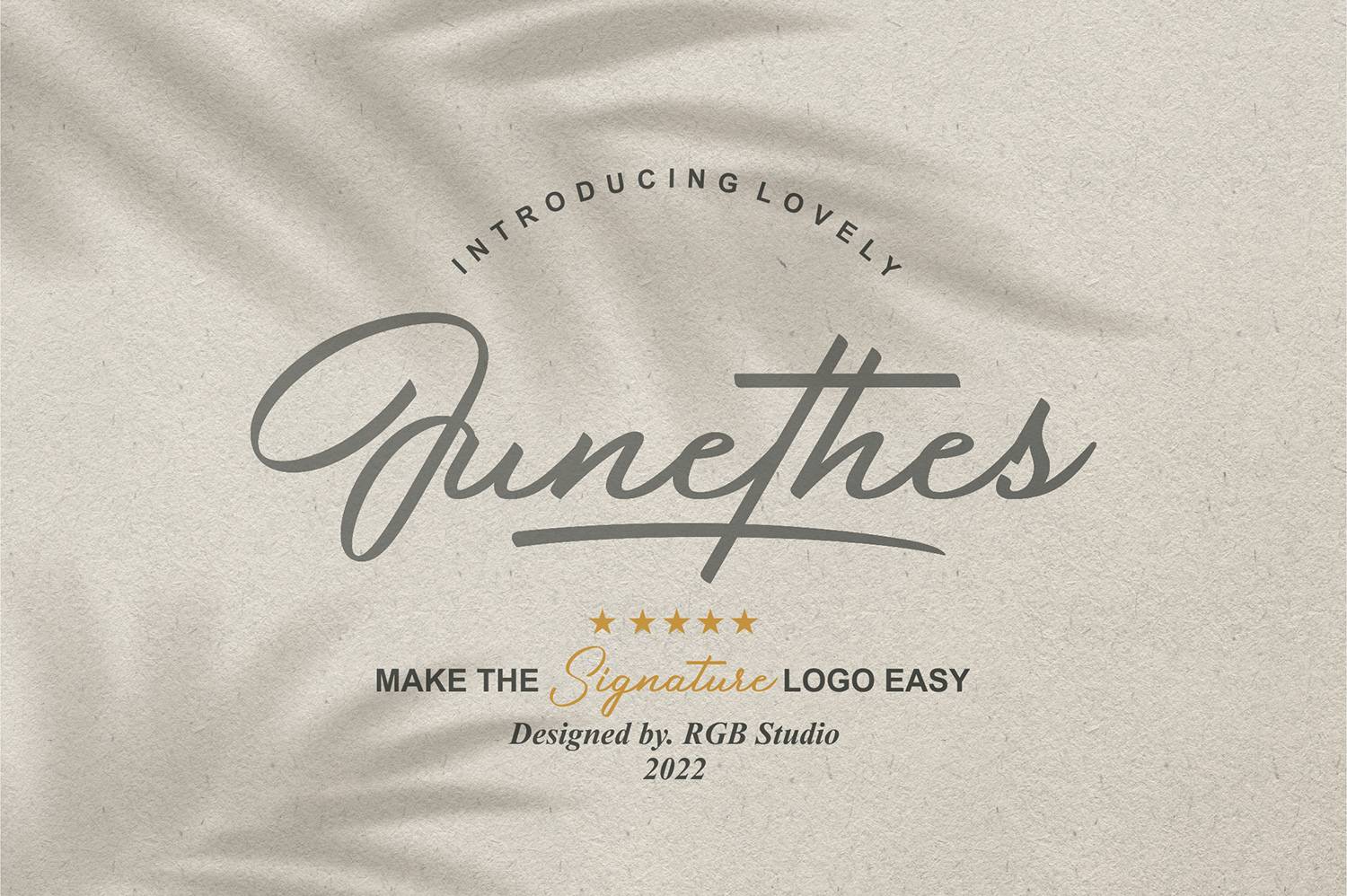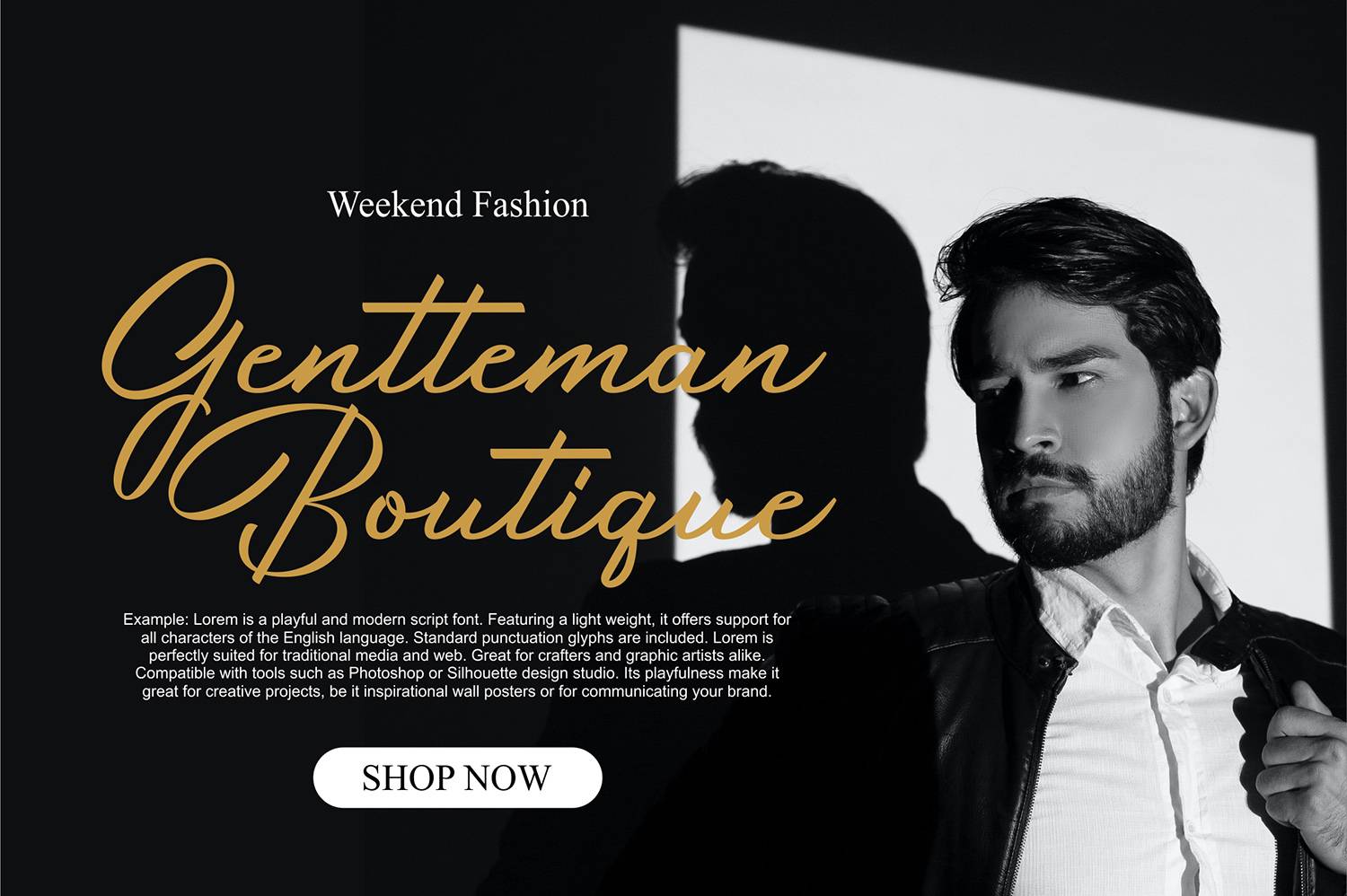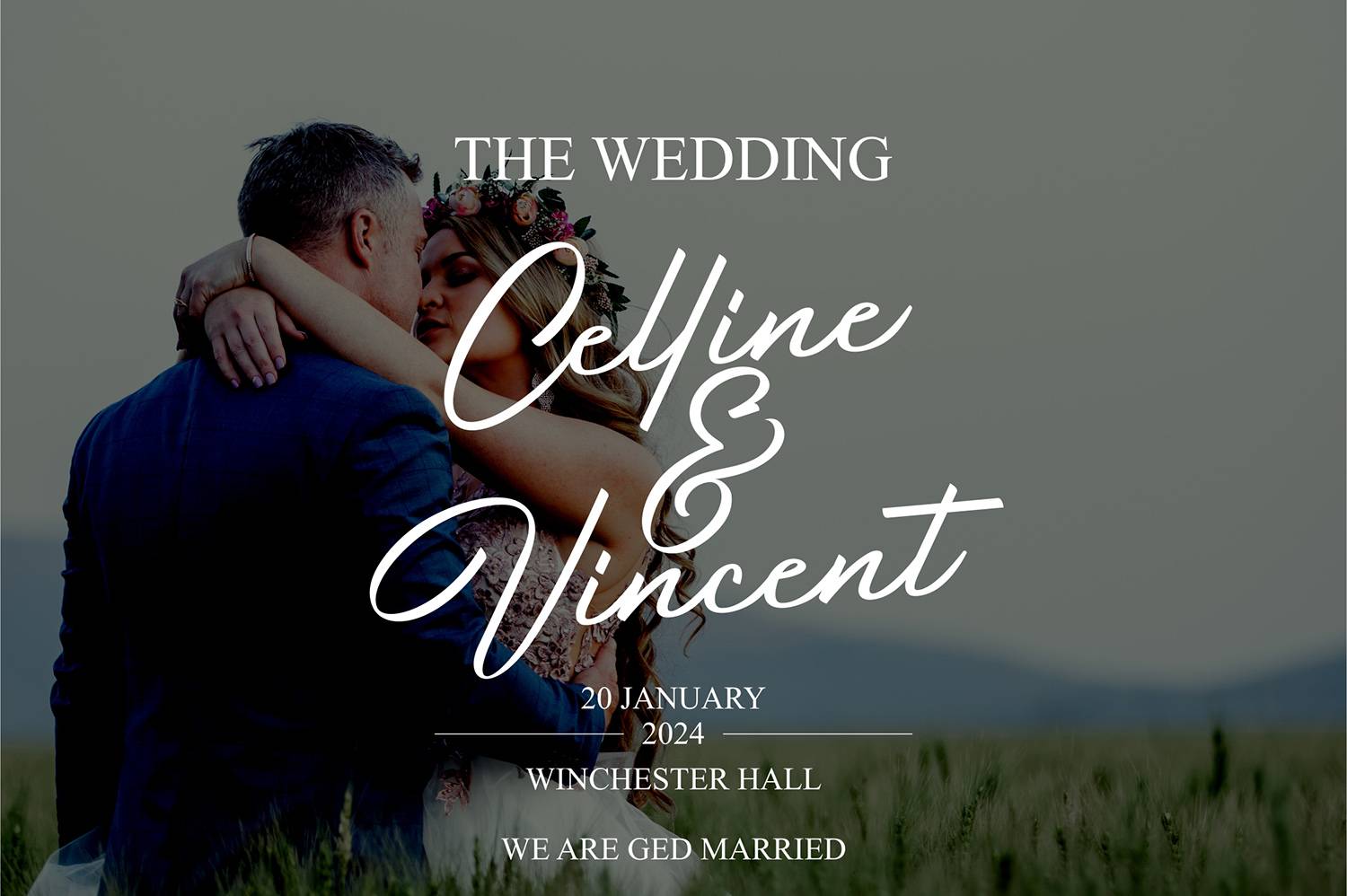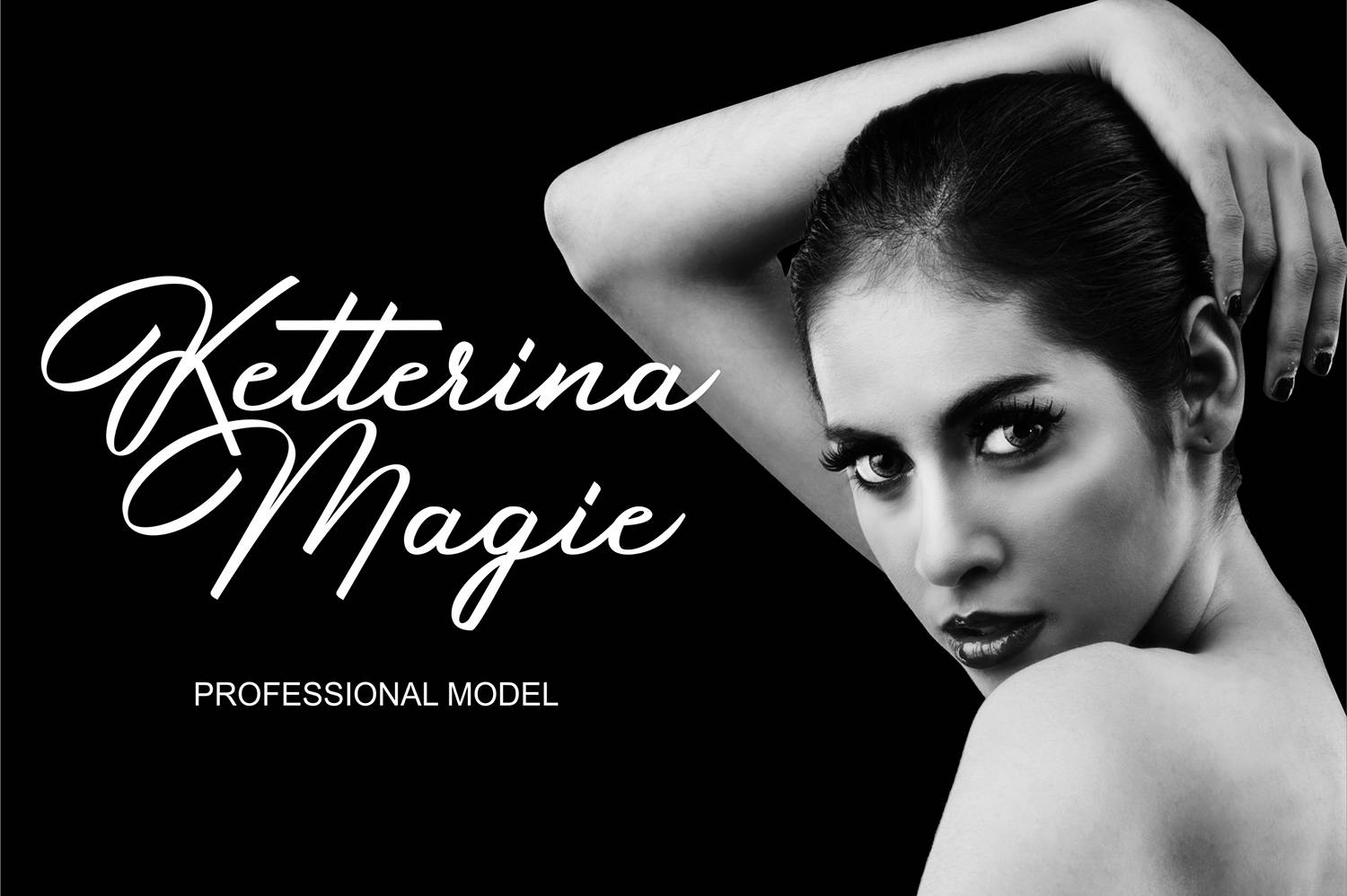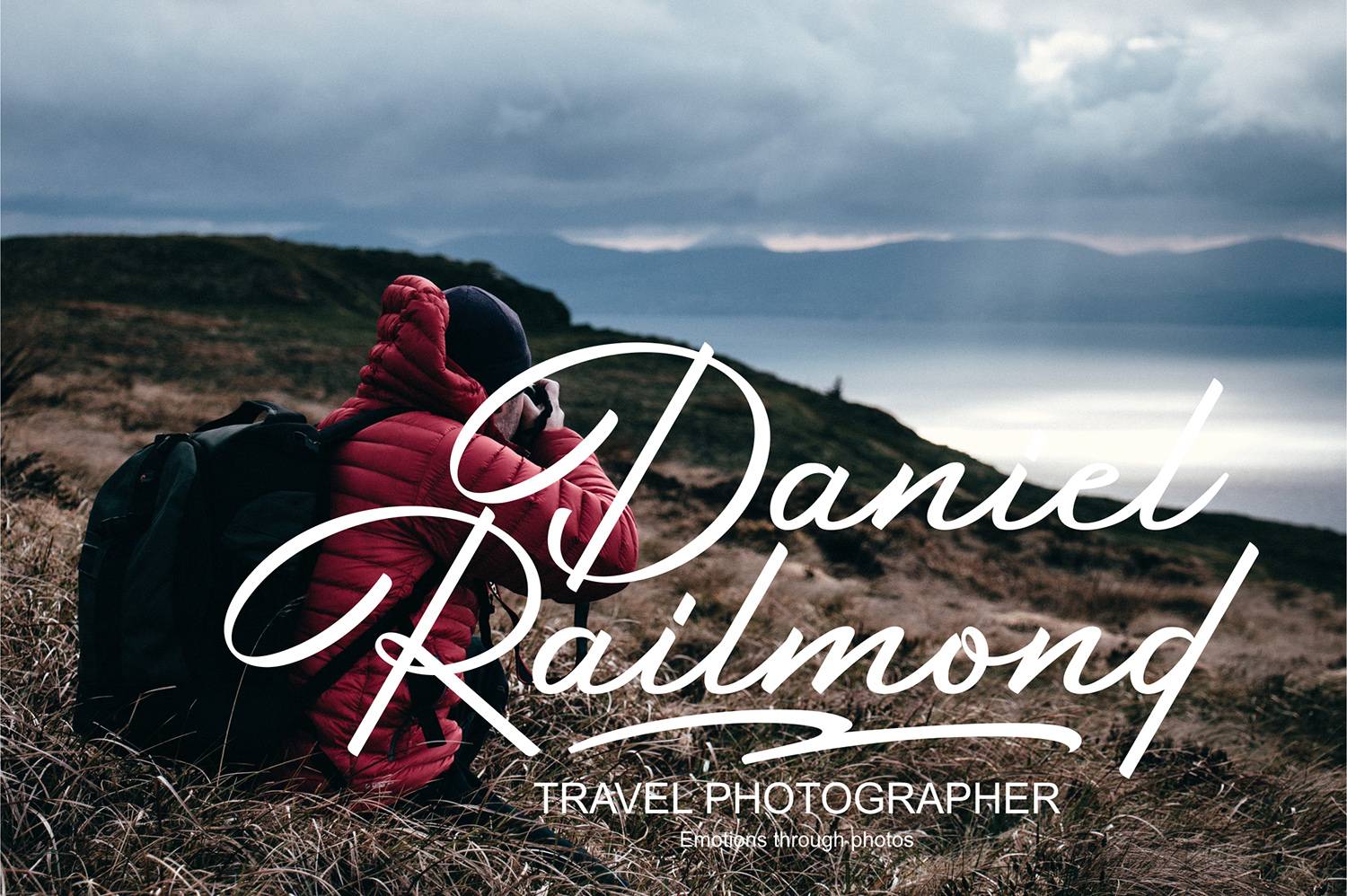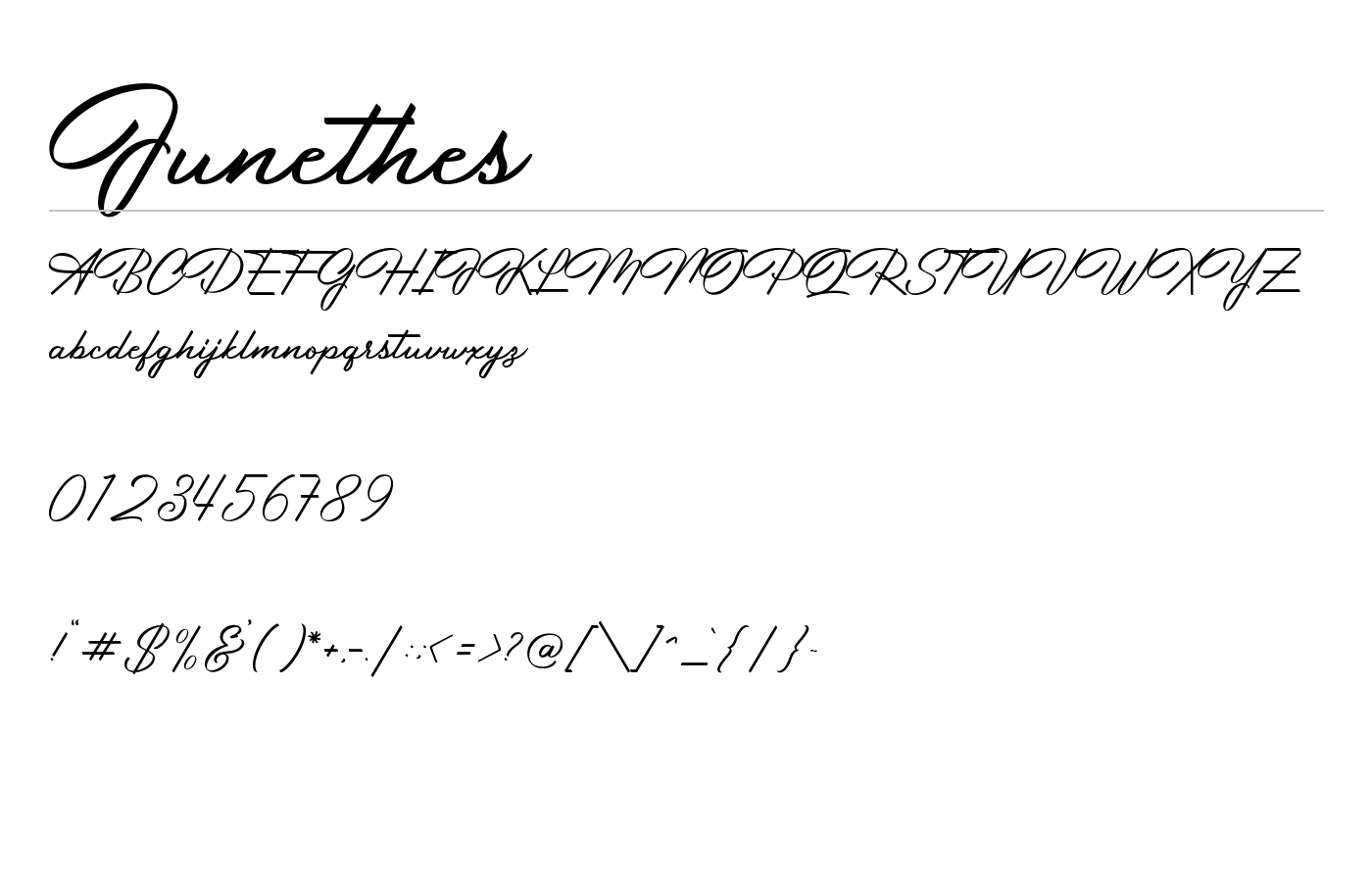
Junethes is an elegant script font featuring delicate, flowing letterforms with a graceful, handwritten style. Its light weight and smooth connections create a refined, sophisticated look that works beautifully for invitations, branding, and decorative text where a touch of charm and personal flair is desired. This font is ideal for projects aiming to convey elegance and warmth with a classic yet modern appeal.
Junethes Font
About Junethes Font
| Font family | Junethes Font |
| Designer | MOH. MA'IN |